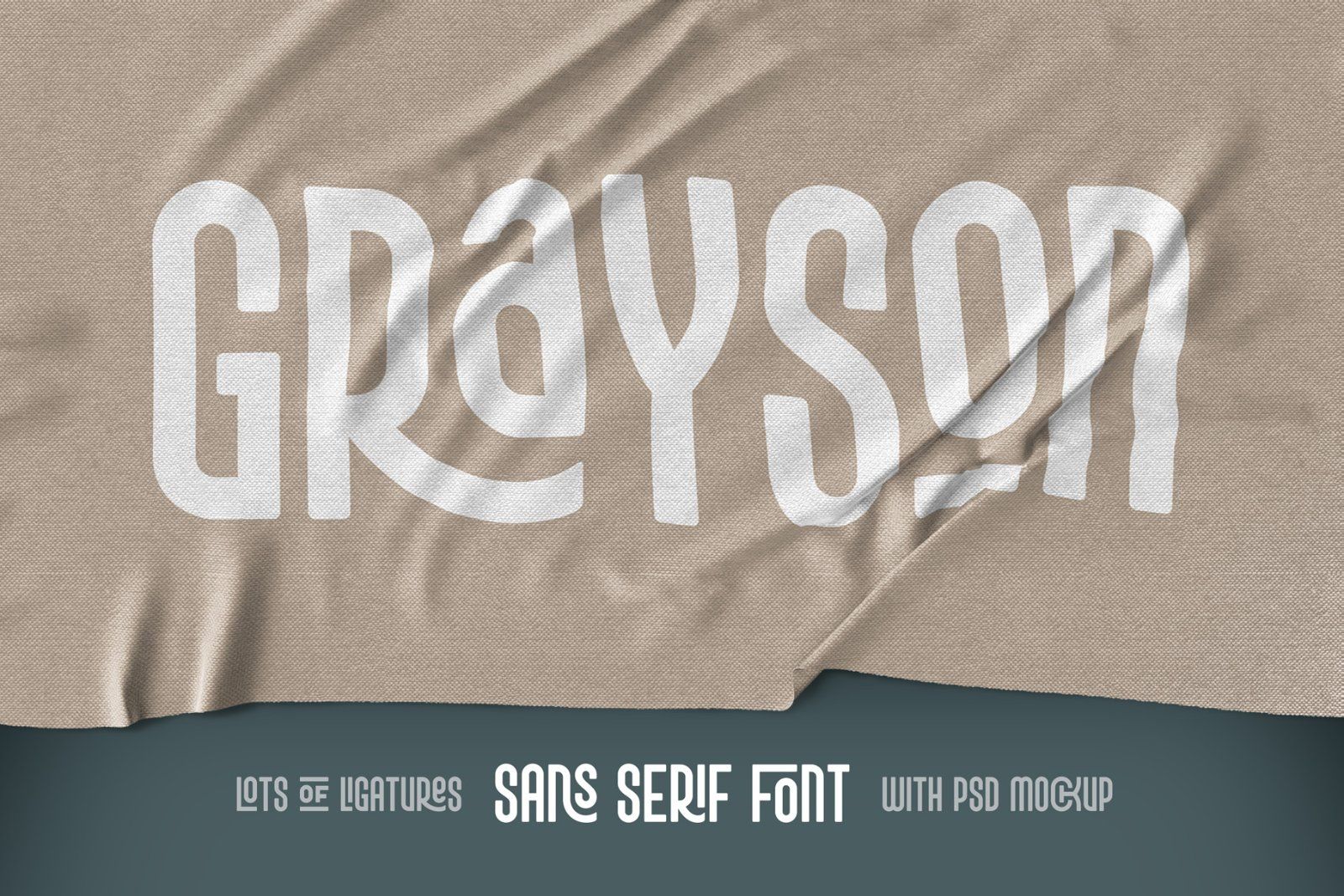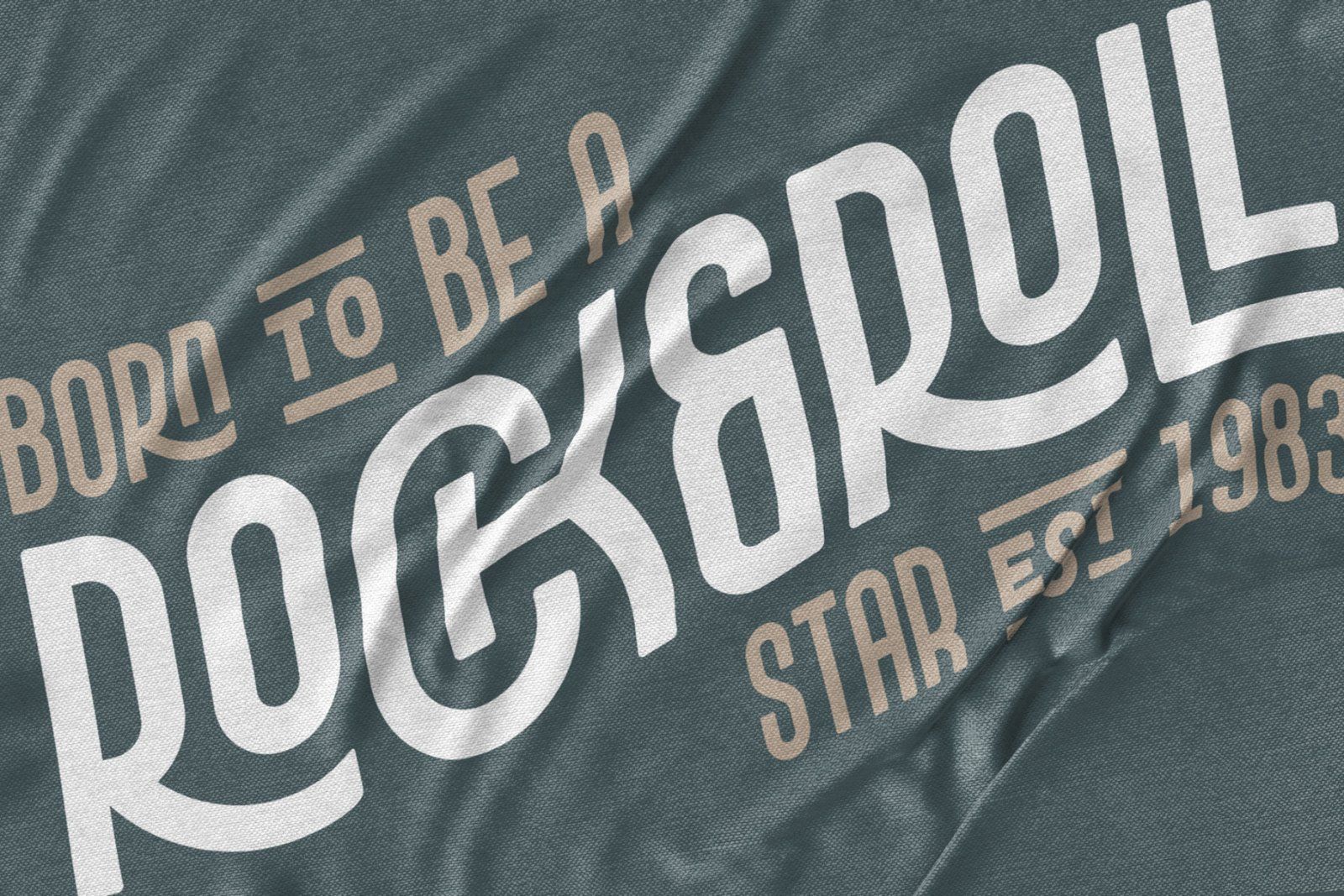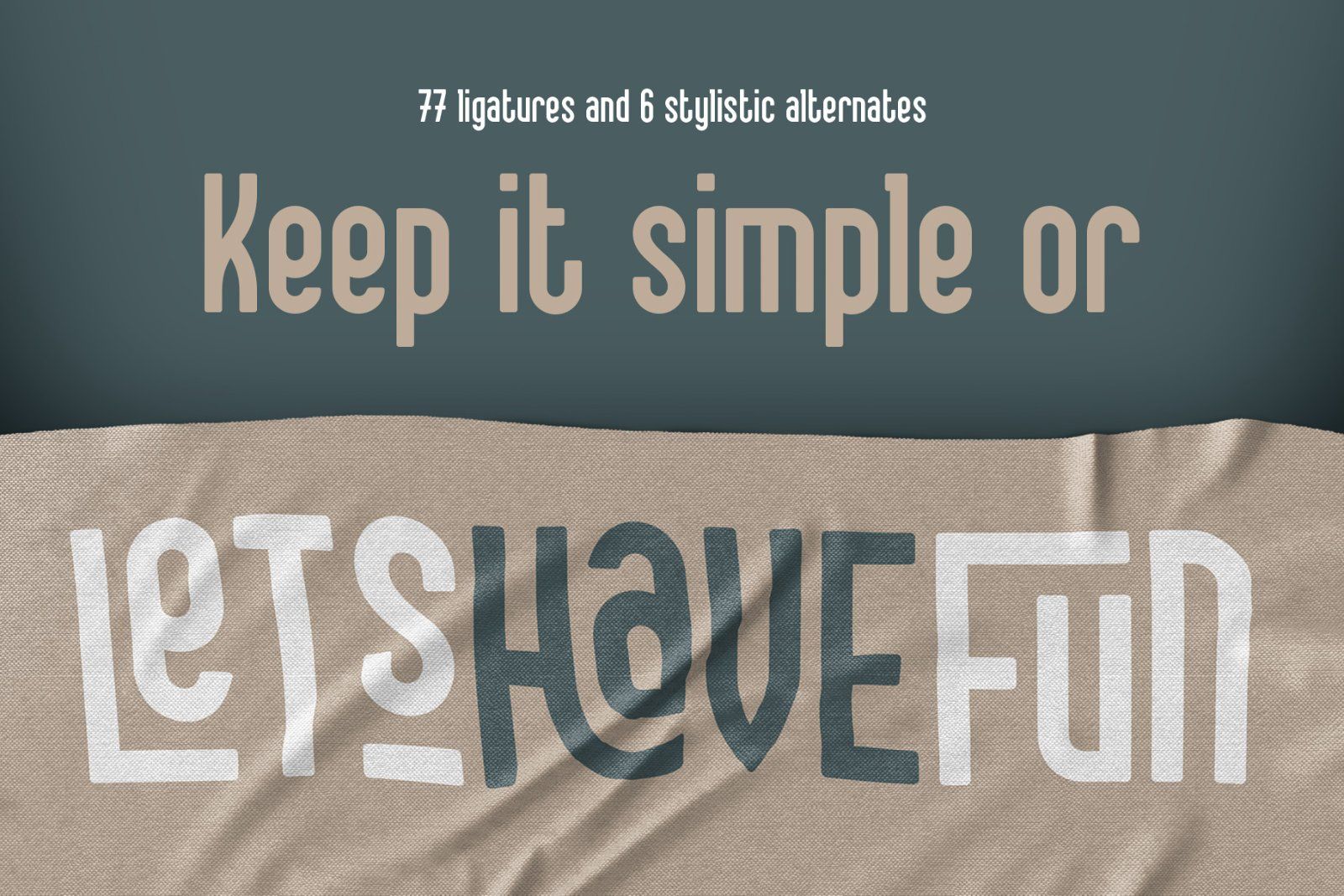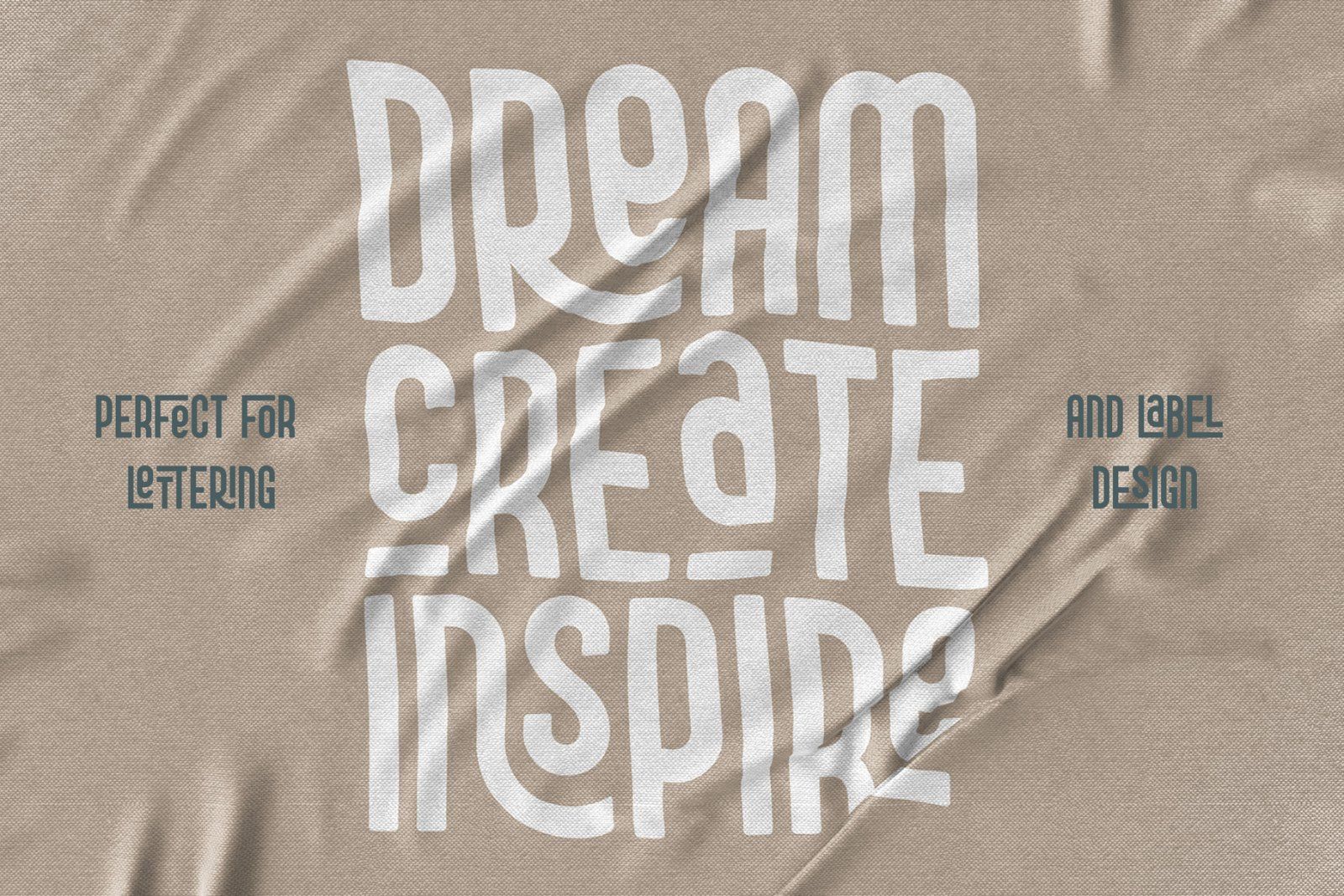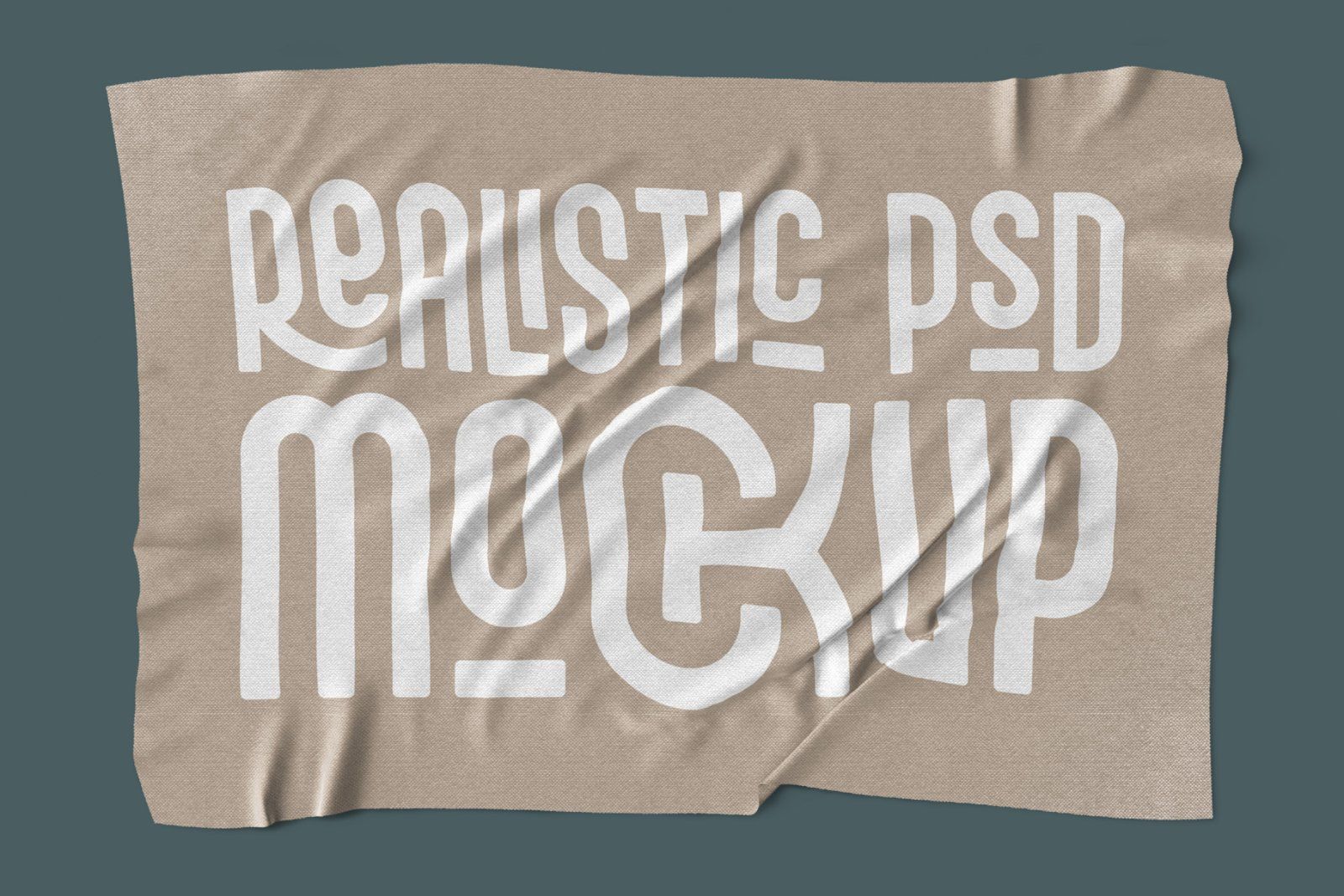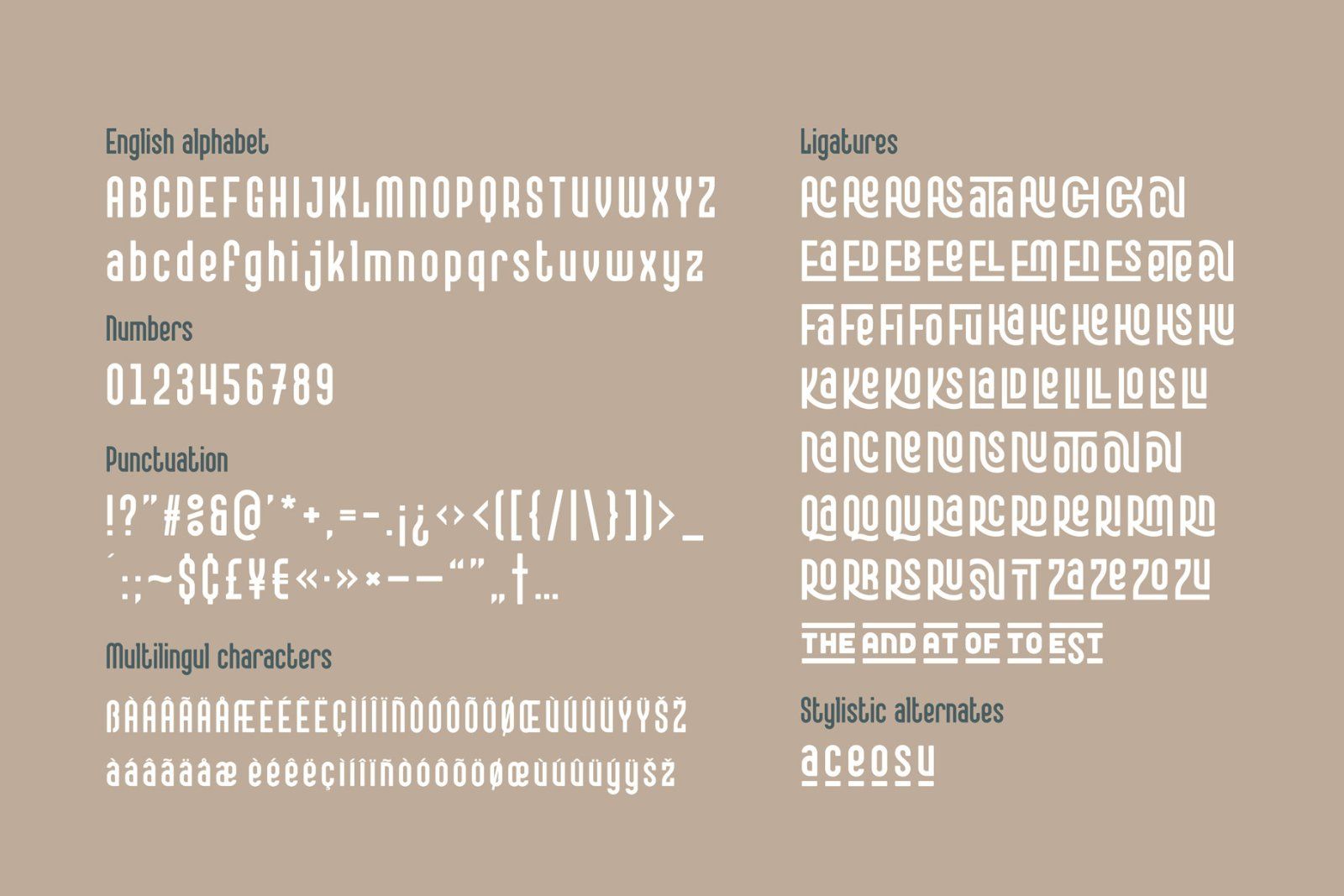
Introducing a modern display font Grayson. It's a sans serif typeface with straight geometrical shape that has a lot of ligatures and stylistic alternates. That OpenType features can help you to create an awesome unique lettering compositions with unexpected characters combinations.
Use capital letters to access all this features. Nevertheless it can be a quite simple font if you'll type a small letters, which can be useful for small supporting text. This font has a west European multilingual support (check out the screenshot with available characters).
Also with this font you will get a psd mockup with 3d rendered laying fabric. Using a 3d layer gives a very natural effect, when each letter perfectly follows each fold.